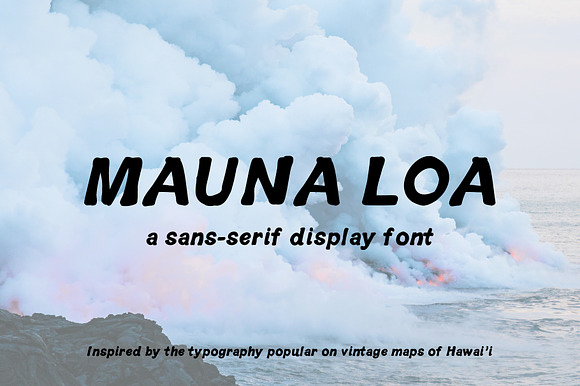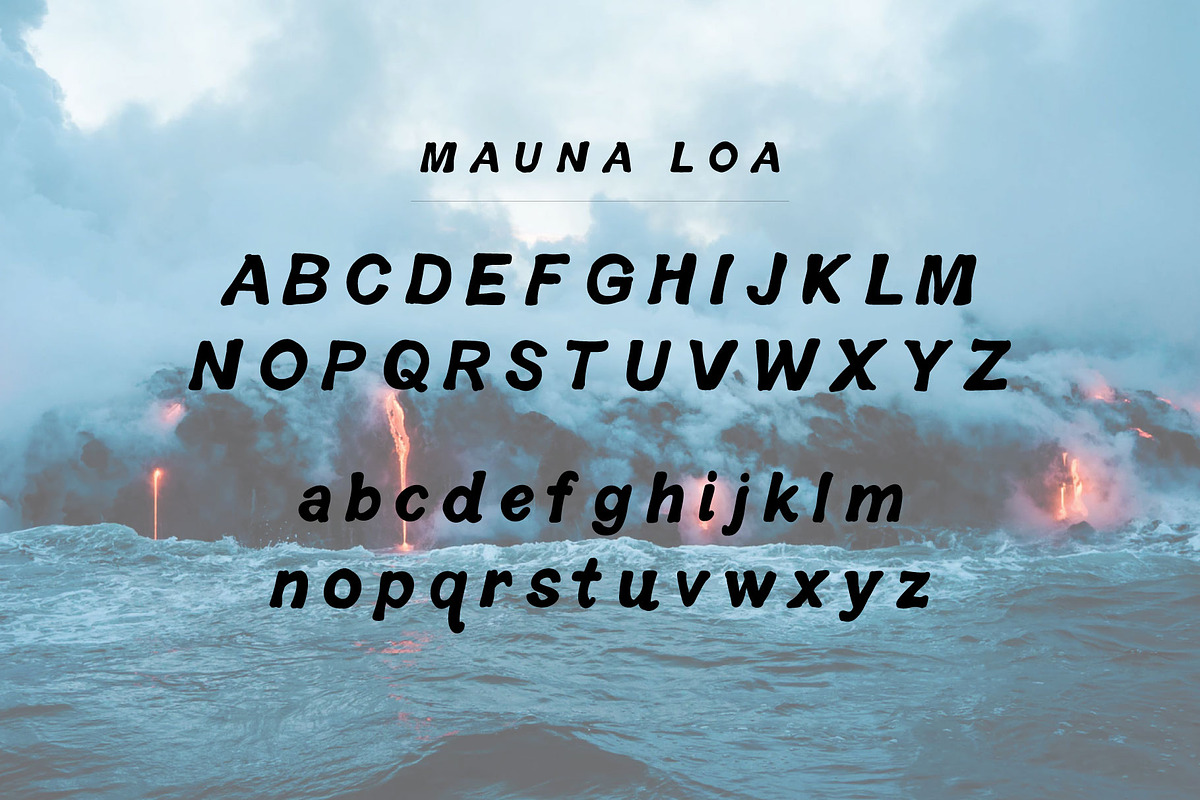
Vintage Hawaiian Font: Mauna Loa
Inspired by vintage maps and illustrations of Hawai'i, Mauna Loa is a hand-made, sans-serif font that evokes a nostalgic, tropical, and organic feelings and is readable both small scale and large.